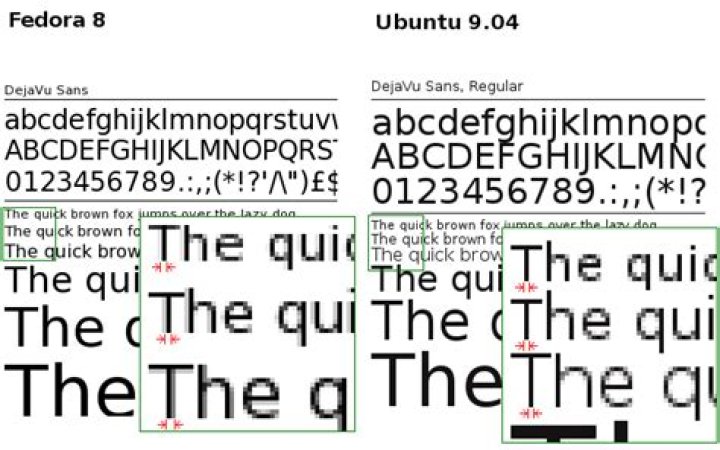
I'm switching from Fedora 8 to Ubuntu 9.04, and I can't seem to get it to get a good font anti-aliasing to work. It seems that Ubuntu's fontconfig tries to keep characters in integral pixel widths. This makes text more difficult to read, when 1 pixel is too thin and 2 pixels is too thick.
Check the image below. In Fedora, when fontconfig anti-aliasing is enabled, fonts have their thickness proportional to the font size. Below, the thickness is different for 8, 9 and 10pt sizes. In Ubuntu, on the other hand, even when anti-aliasing is enabled, all 8, 9 and 10pt sizes have 1 pixel thickness. This makes reading larges amount of text difficult.
There is an old trick to make fonts smoother on Ubuntu (and pretty much every distro running Gnome):
As John said it, the ~/.fonts.conf file is useful to tweak your font configuration.
Although not directly repsonsive to OP, the answer I came here looking for, and which would have saved me about 60 minutes was:
Don't forget to try turning down your monitor sharpness.
In Windows, I'd used its font-adjustment tool which somehow compensated for my monitor's overly-high sharpness setting. Switching to Ubuntu with the same monitor, I was like "bleagh why does everything look awful". All fonts looked terrible, and also made the color depth look low. Only after trying a wide variety of options, mostly within Ubuntu, did I just start trying every setting on my monitor, and reducing sharpness to zero that solved it.
I find Medium hinting to be the most pleasing on my LCD screen.